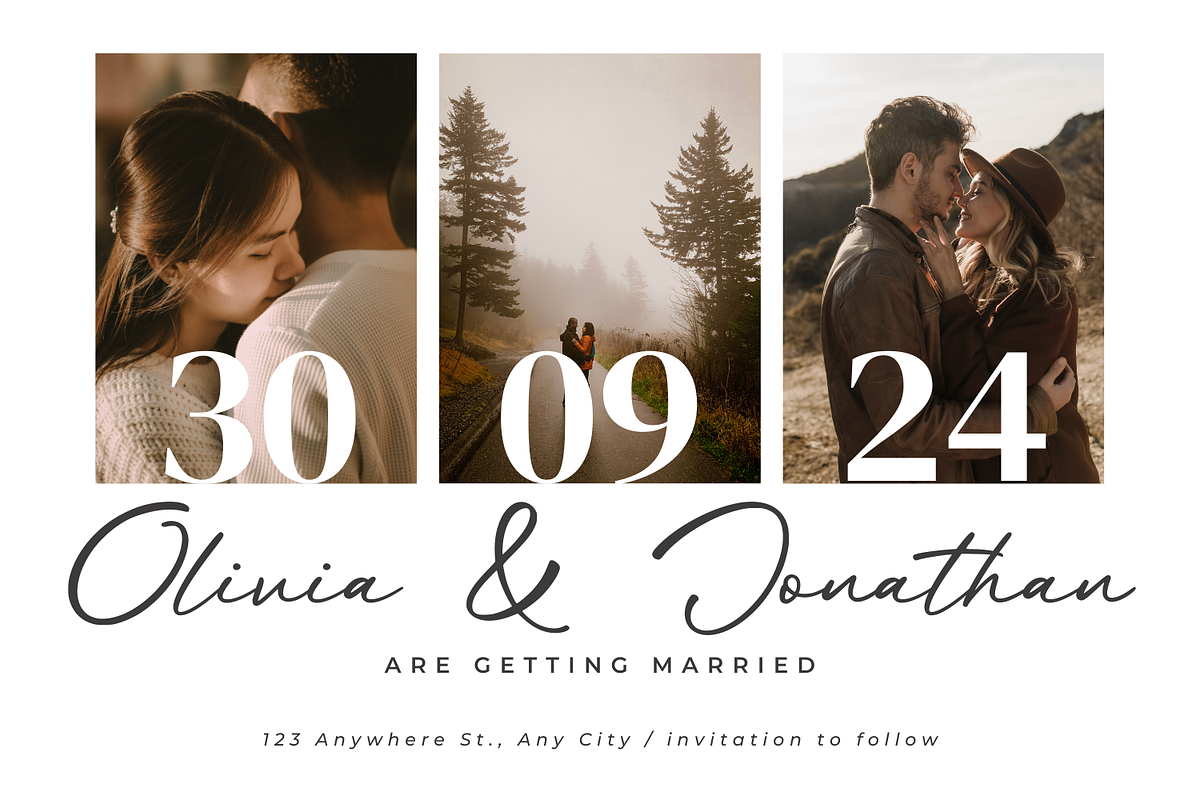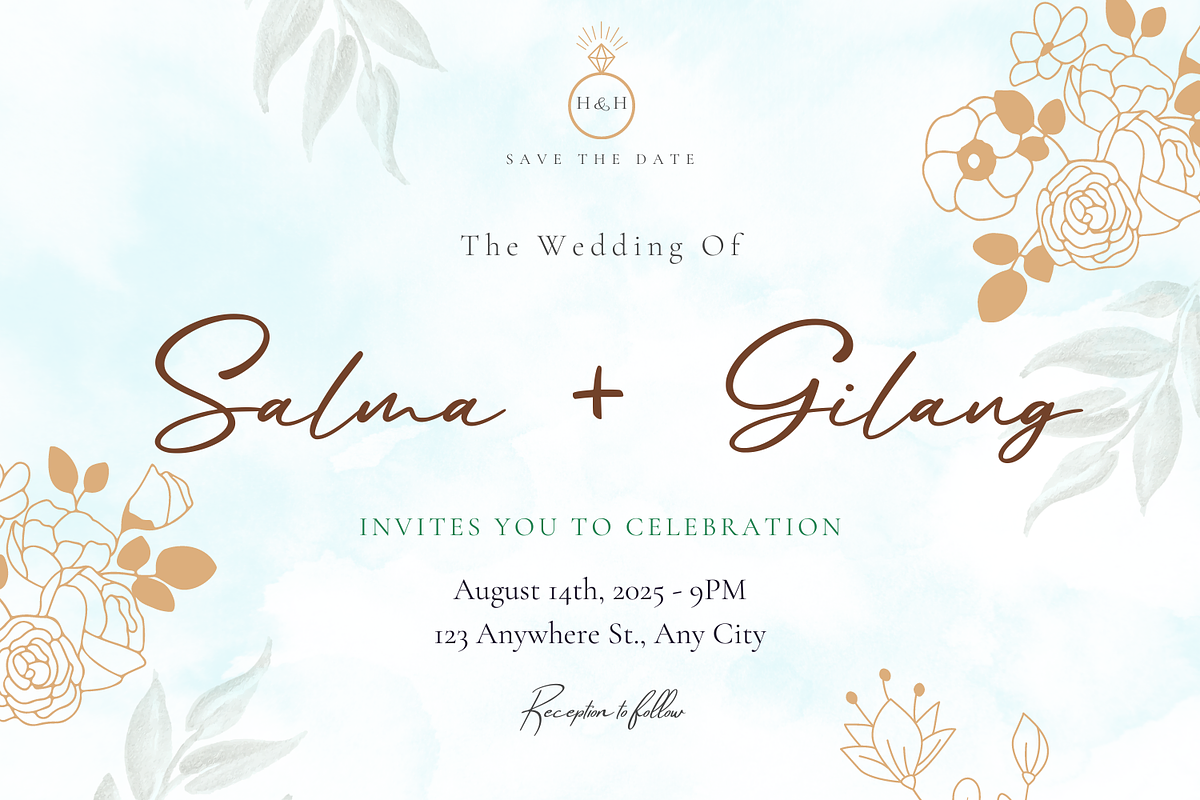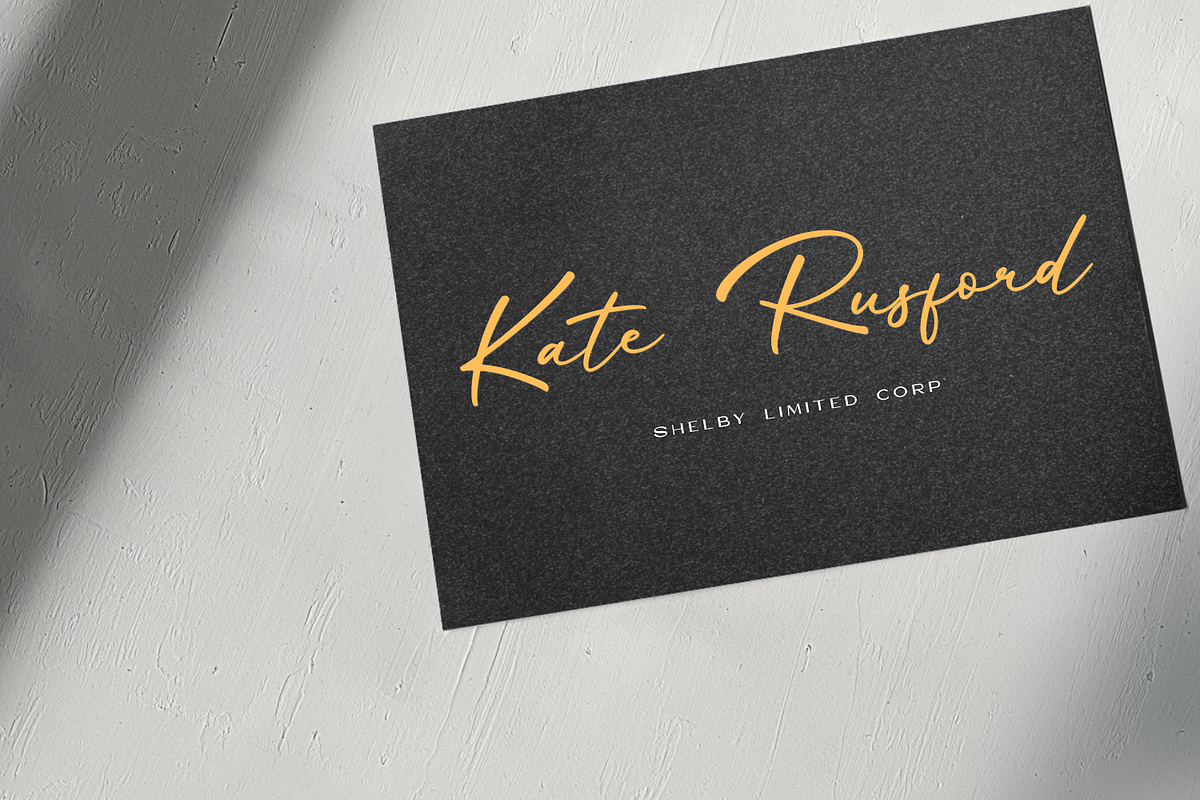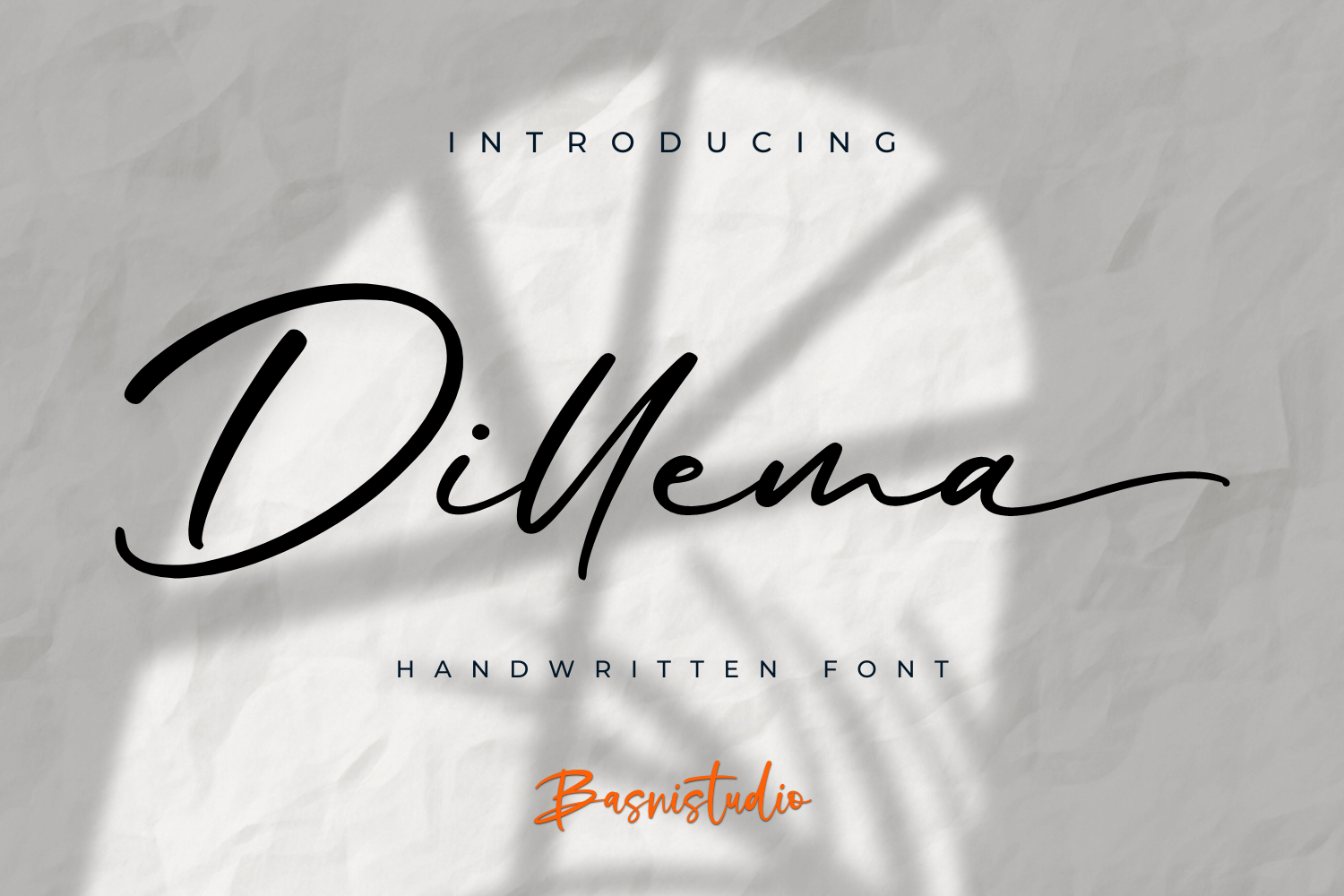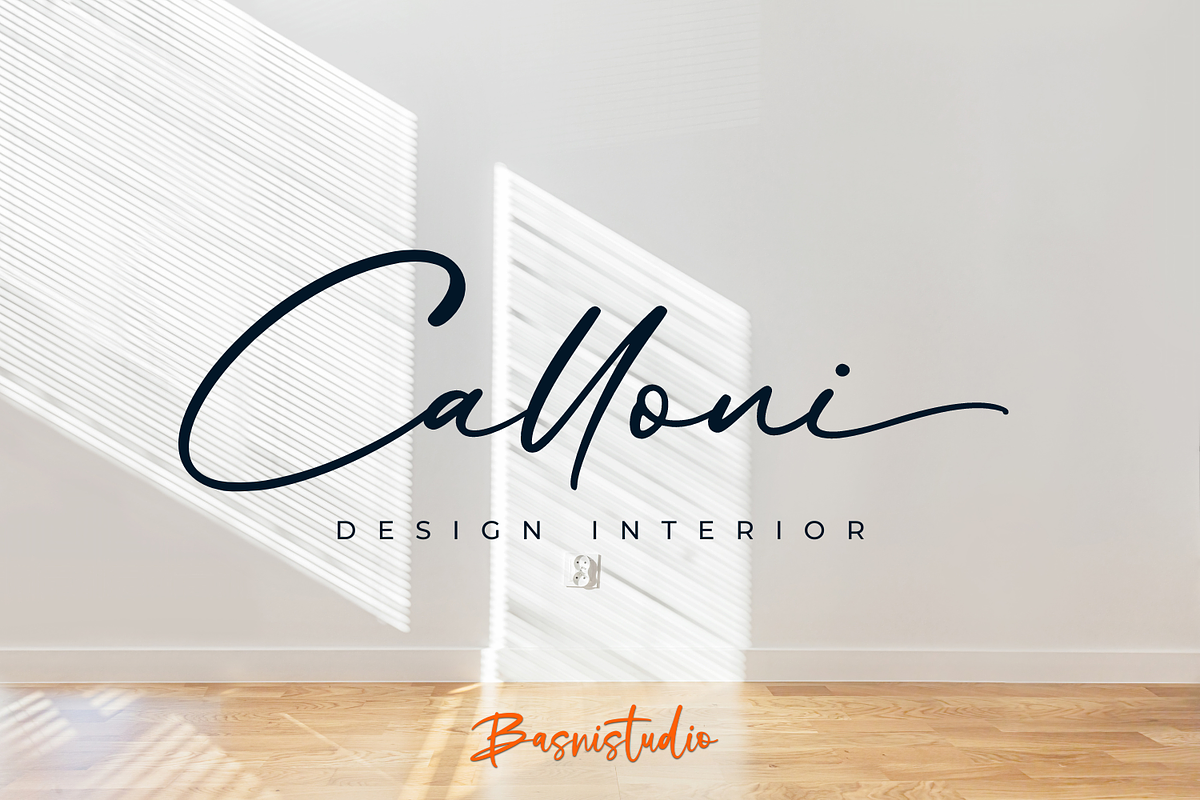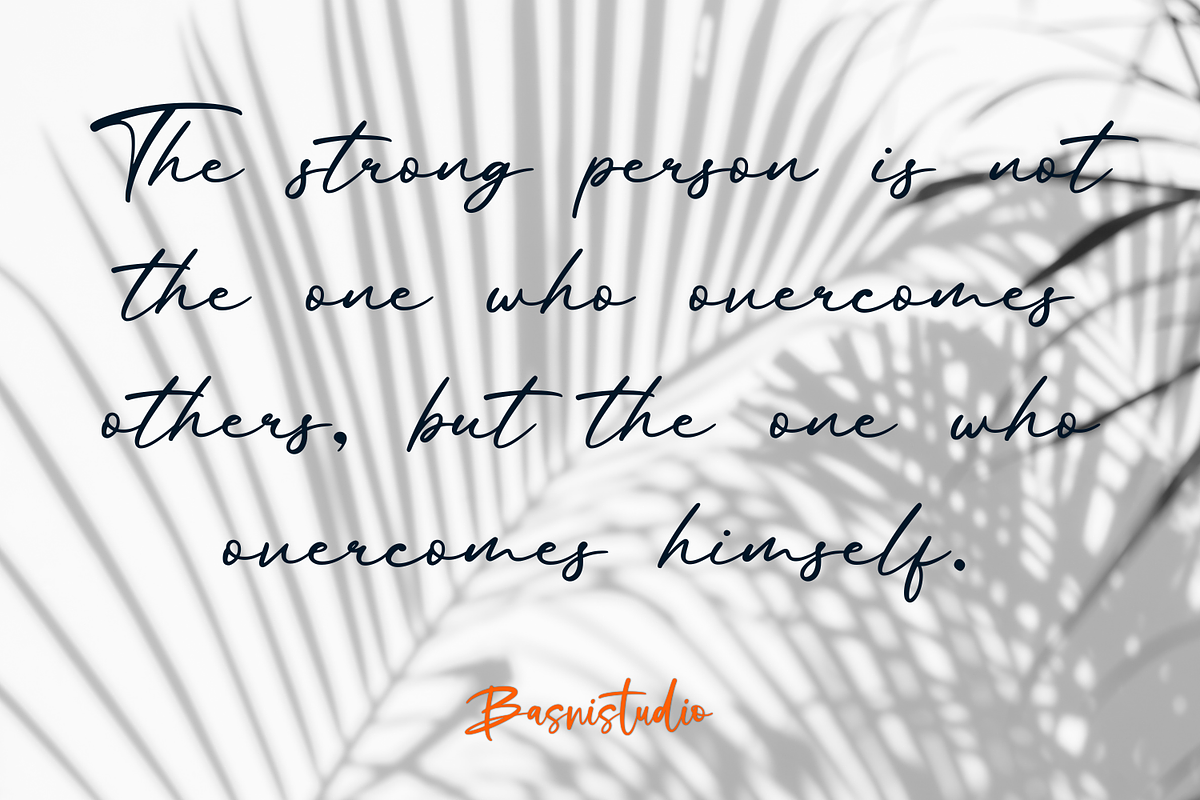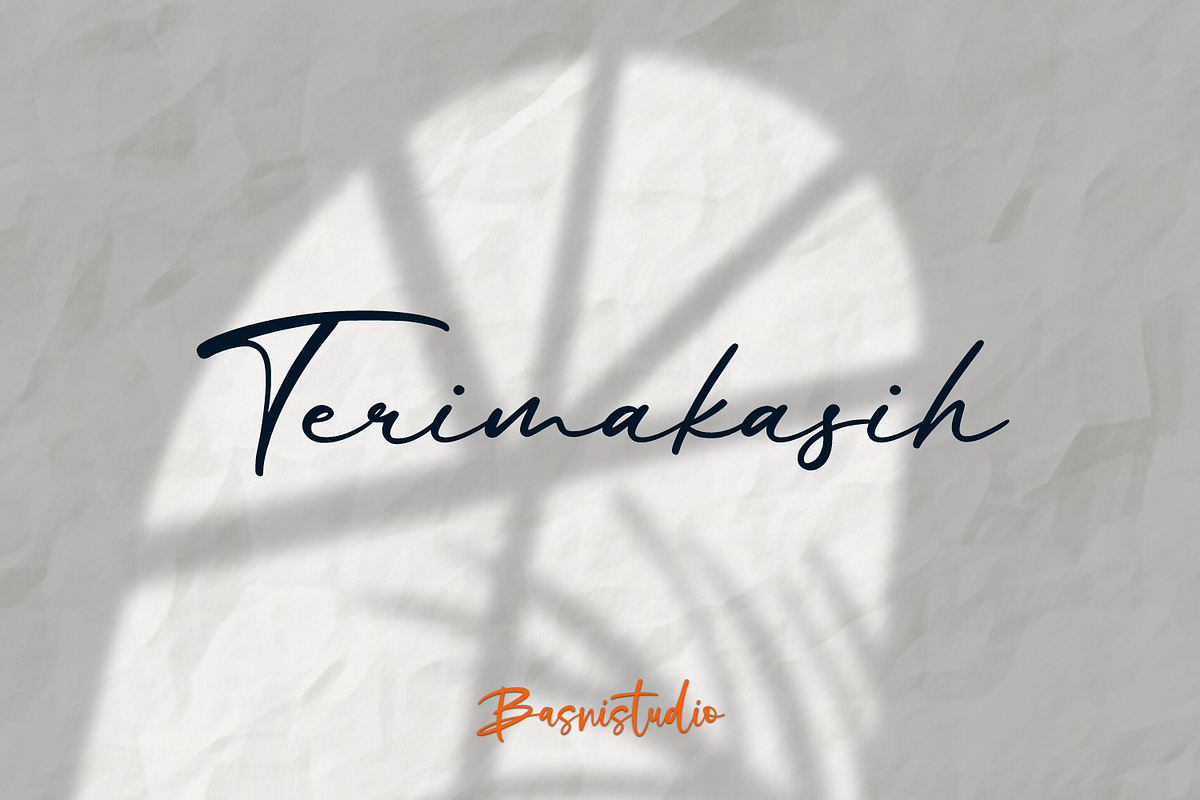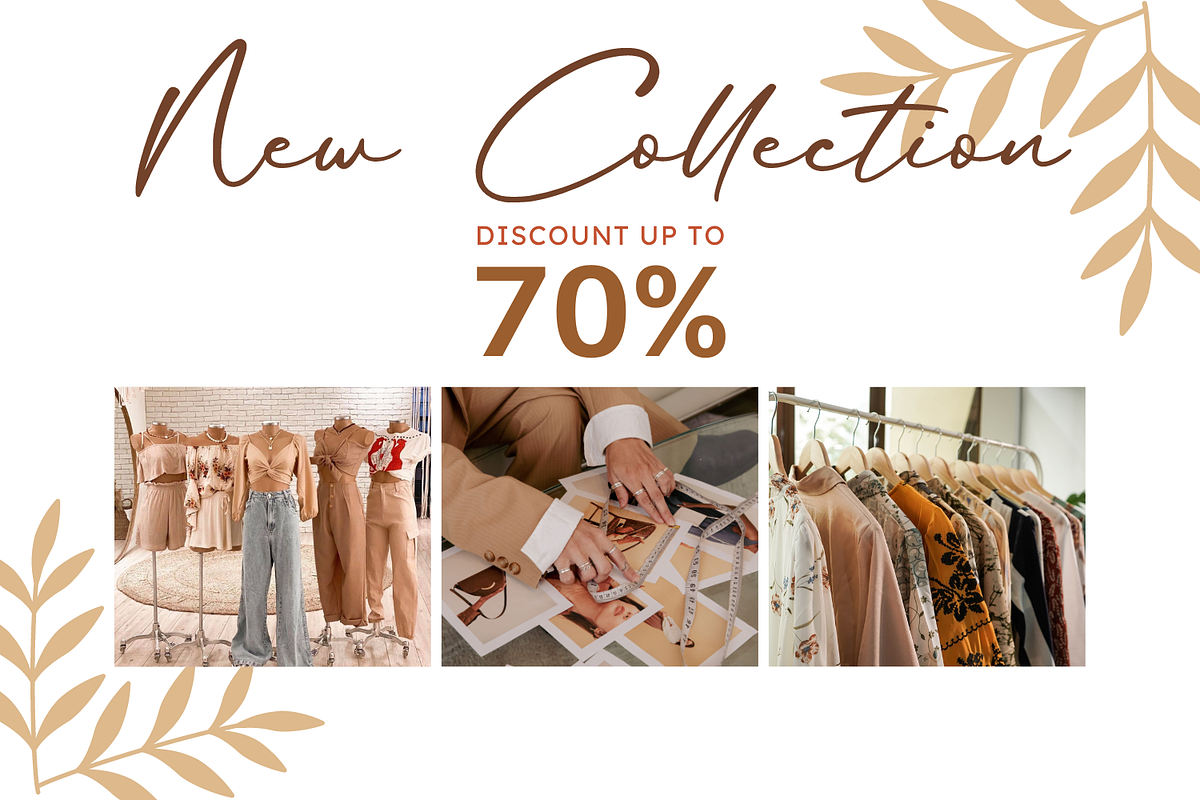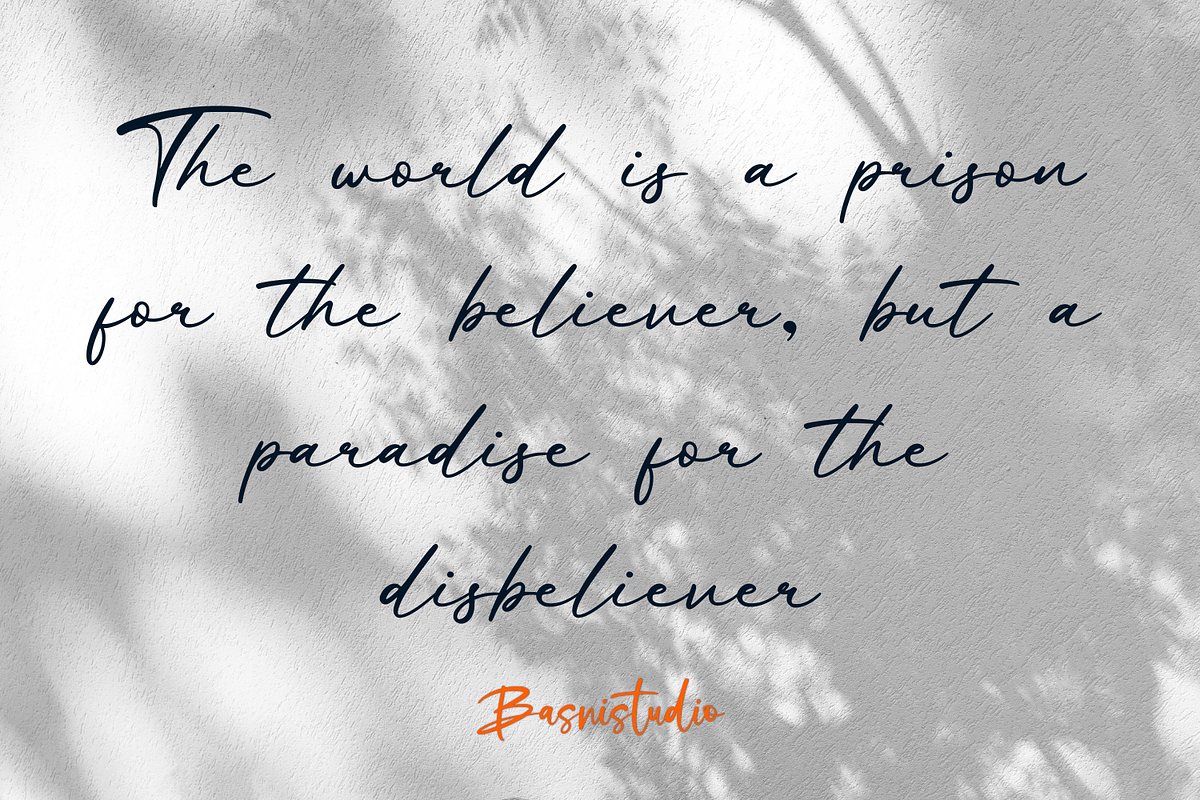
Dillema Handwritten Font
Introducing Dillema Handwritten Font
Dillema Handwritten Font , made with Naturaly & precision, perfect for branding, websites, and editorial designs. Includes all Characters letters, multilingual support, punctuation, binding. everything can be easily accessed using software that supports OpenType. What’s include: